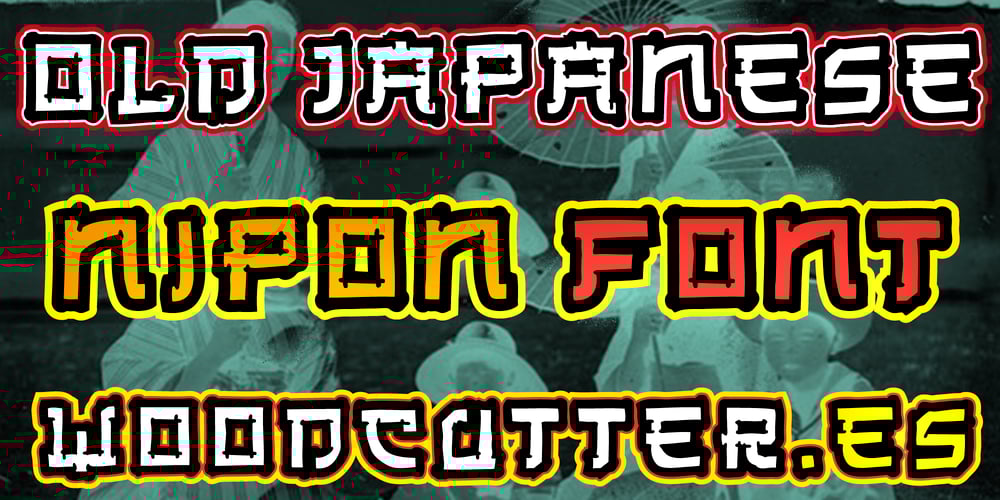
Old Japanese
Old Japanese font
Old Japanese Font Family was designed by Jordi Manero and published by Woodcutter. Old Japanese contains 1 styles and family package options. “Old Japanese” is a typeface with an oriental style, inspired by traditional Japanese typography. Its solid contours and white letter backgrounds provide a clean and distinctive look. Ideal for projects seeking to evoke the elegance and aesthetics of Japanese culture. This font includes accents, making it versatile and suitable for various uses, from graphic design to signage. “Old Japanese” is perfect for adding an authentic and exotic touch to your designs, capturing the essence of ancient Japanese calligraphy.